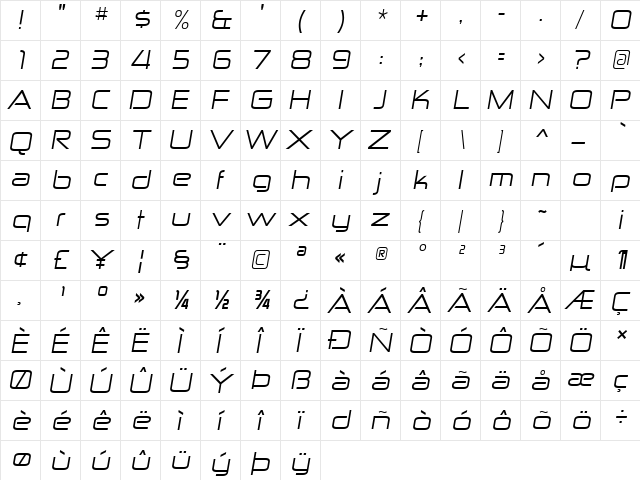
Zekton Ex Italic
Design Context for Zekton Ex Typeface
Zekton Ex offers clean, dependable letterforms without strong stylistic allegiance, making it a practical choice for designers who need flexibility. The dynamic lean of this cut emphasises speed and emphasis in any layout.
Pro Tip: Use Zekton Ex for emphasis, pull quotes, and subheadings where its slanted energy can add rhythm to the layout.